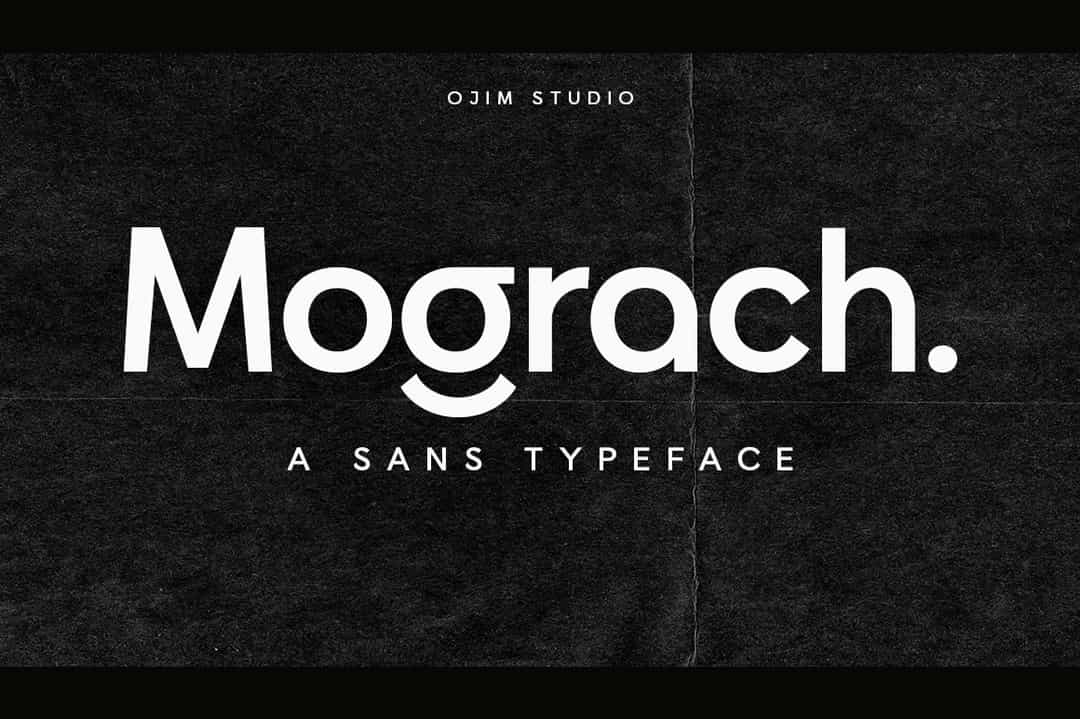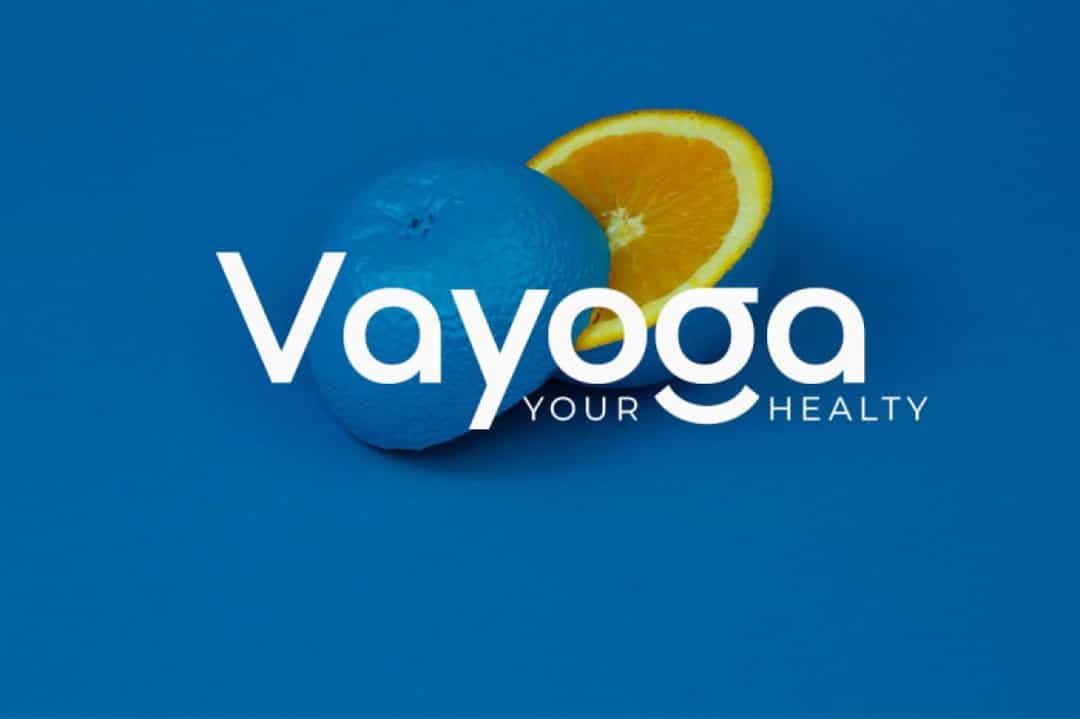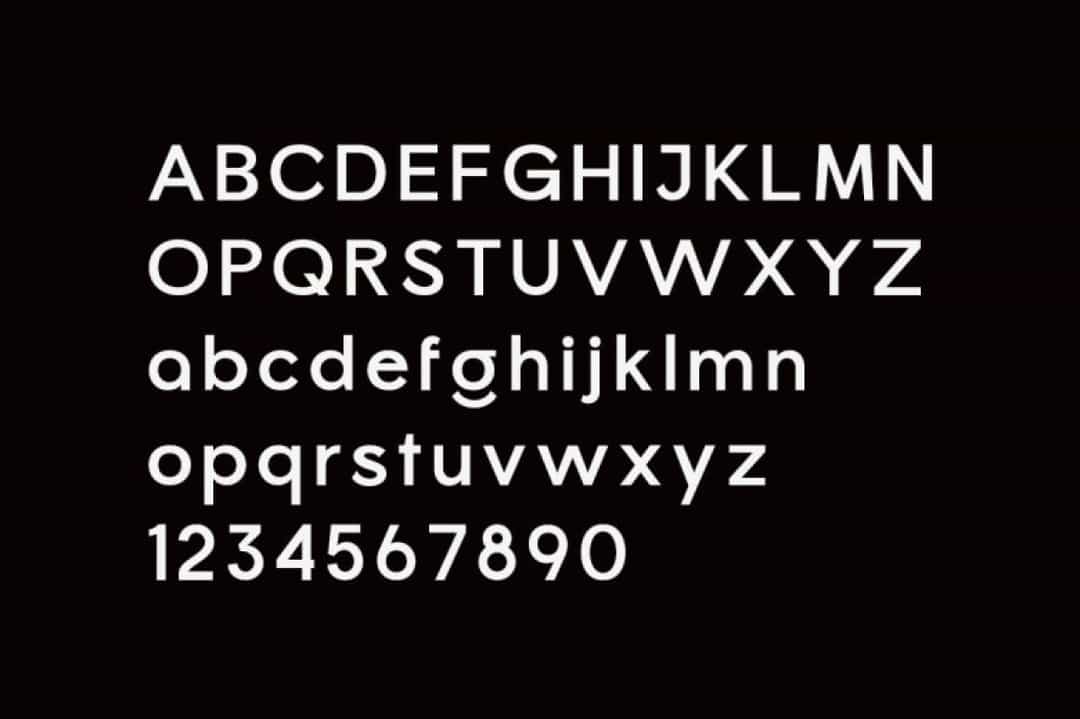
Mograch was designed as an easy-to-read sans serif font for screen use. It features refined yet contemporary curves for an eye-catching headline look. Create memorable logos, T-shirt badges, invitation packaging and headlines, posters or magazine headlines, greeting card or wedding cards using this versatile font!